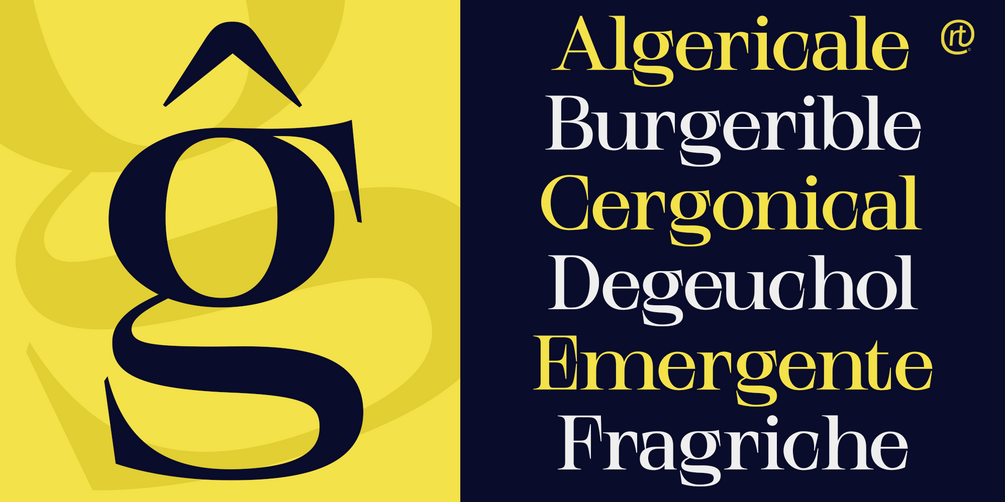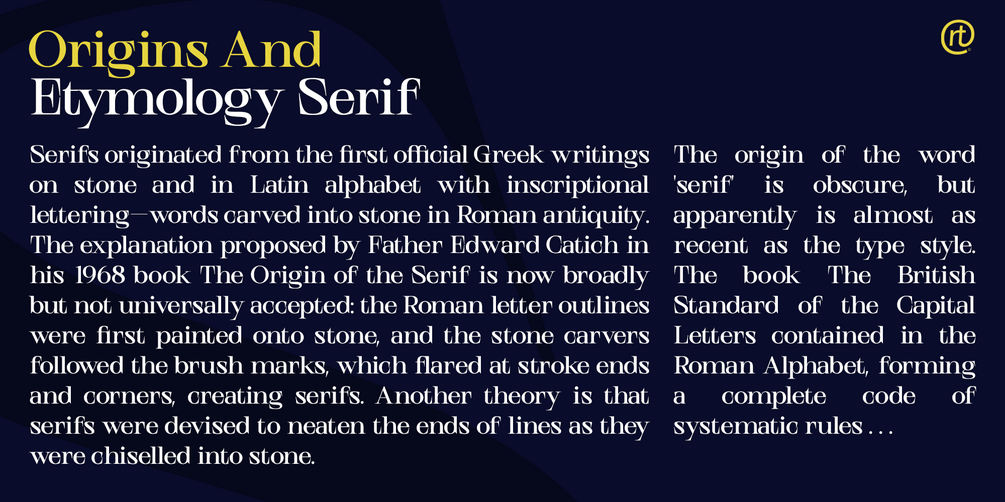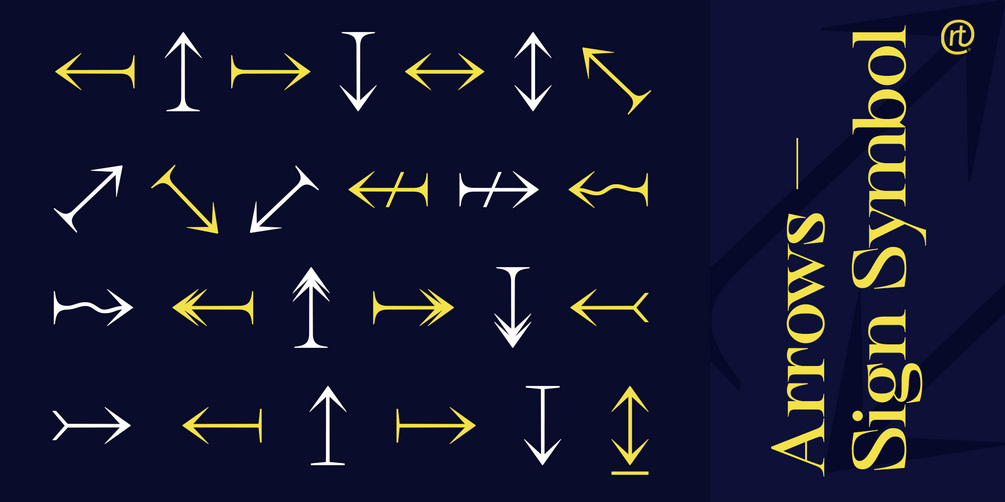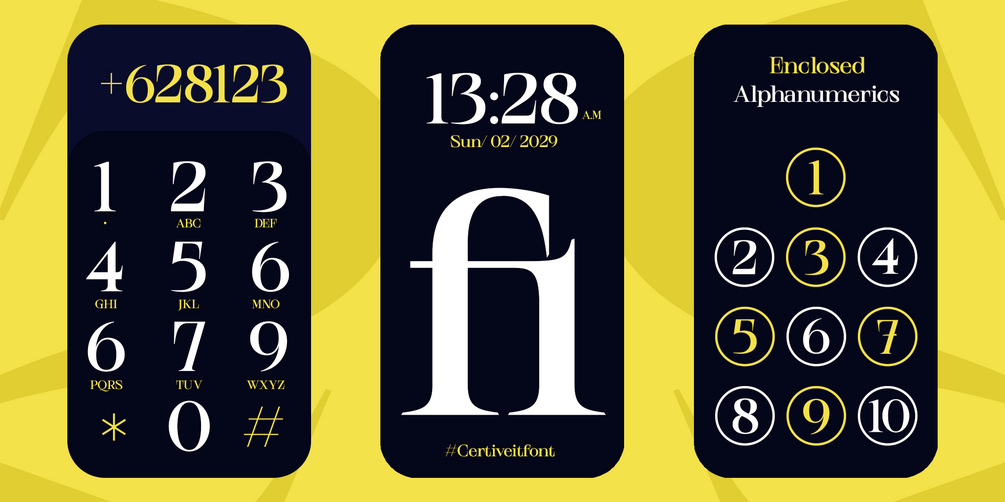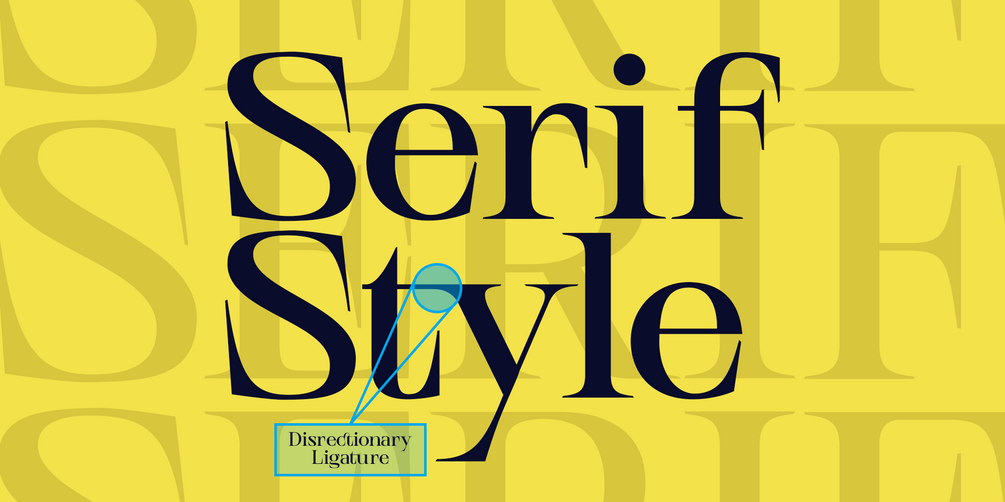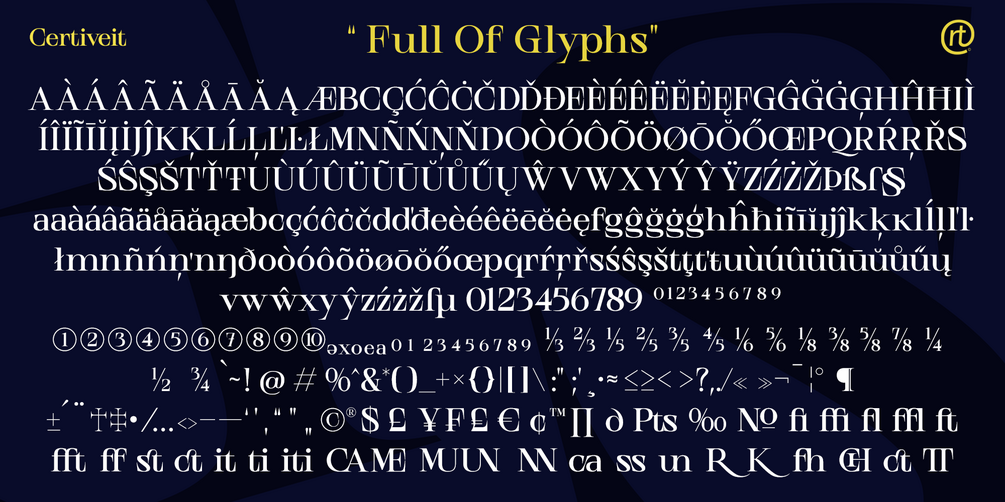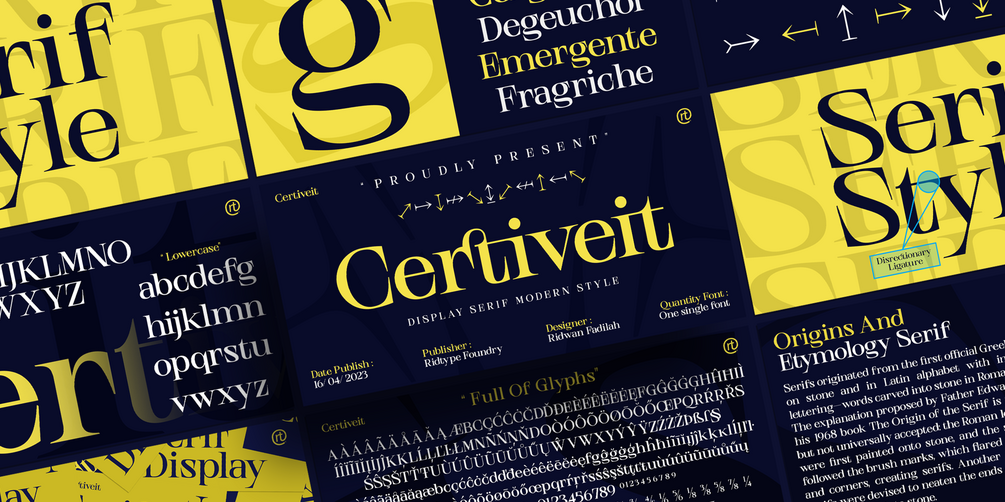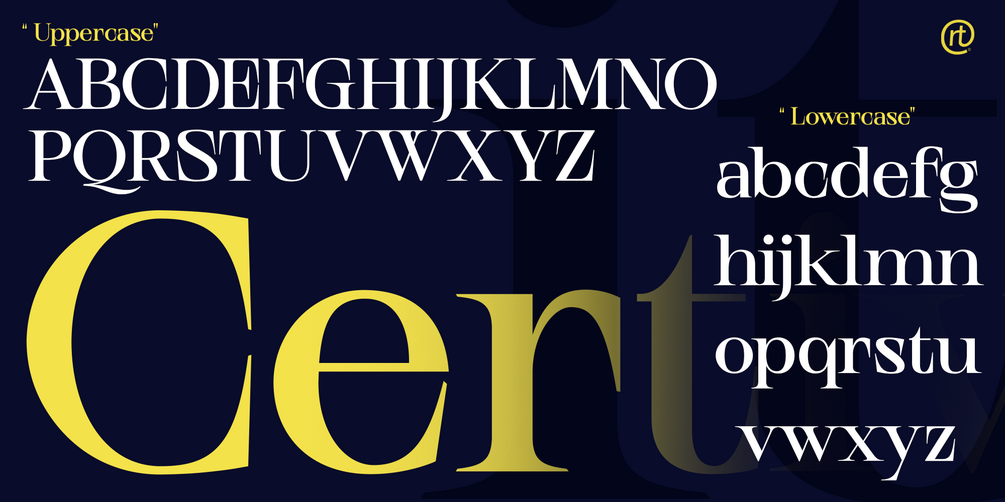
Certiveit Font - Serif Display Modern
Certiveid is a serif display font inspired by the history of peace in the Third Crusade (1189–1192).
Therefore, with a modern classic touch and combined with some serif (pointed) ornaments that signify this font is sharp, dashing, and bold, This font also has complementary ornaments such as arrows sign, enclosed alphanumerics, fractions, and ligatures, which function as a complement to text works as well as in support as a design if needed.
Details Font : Serif Display